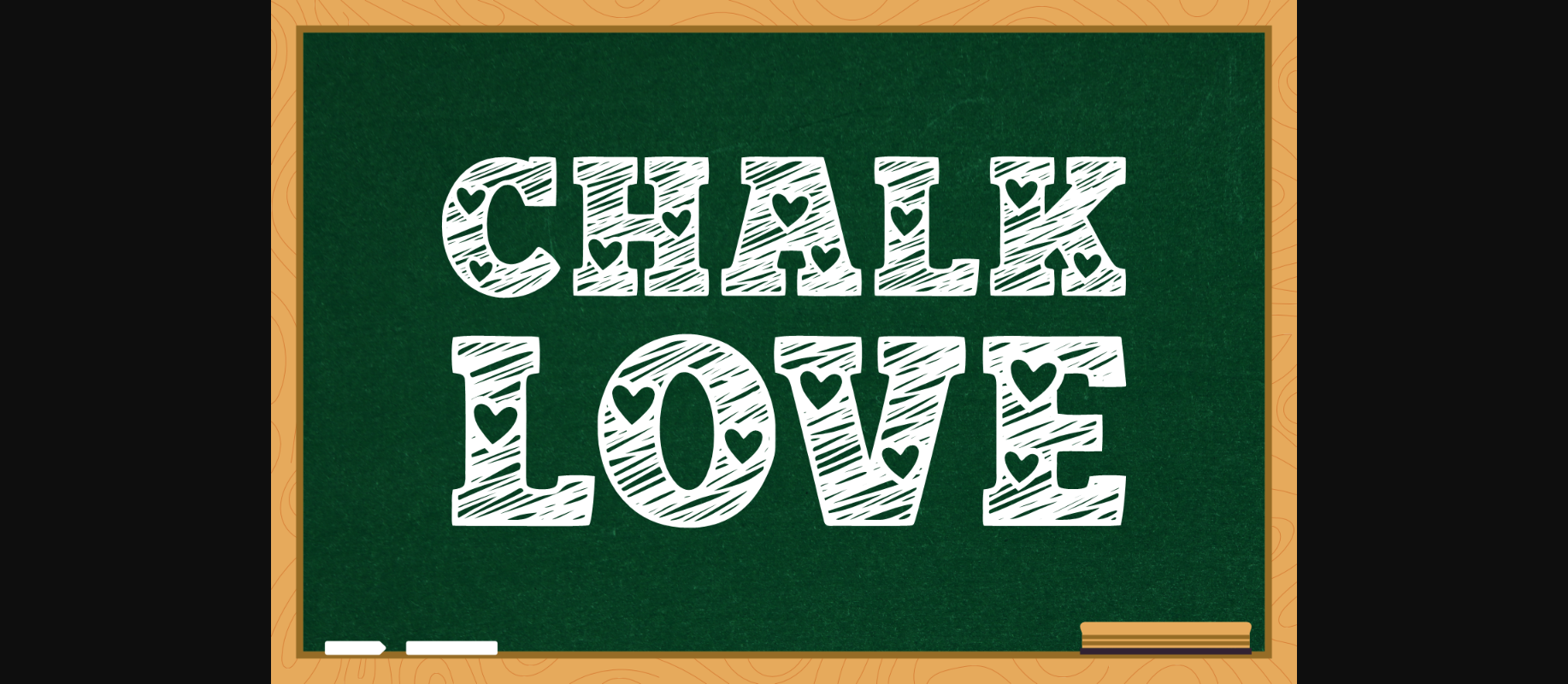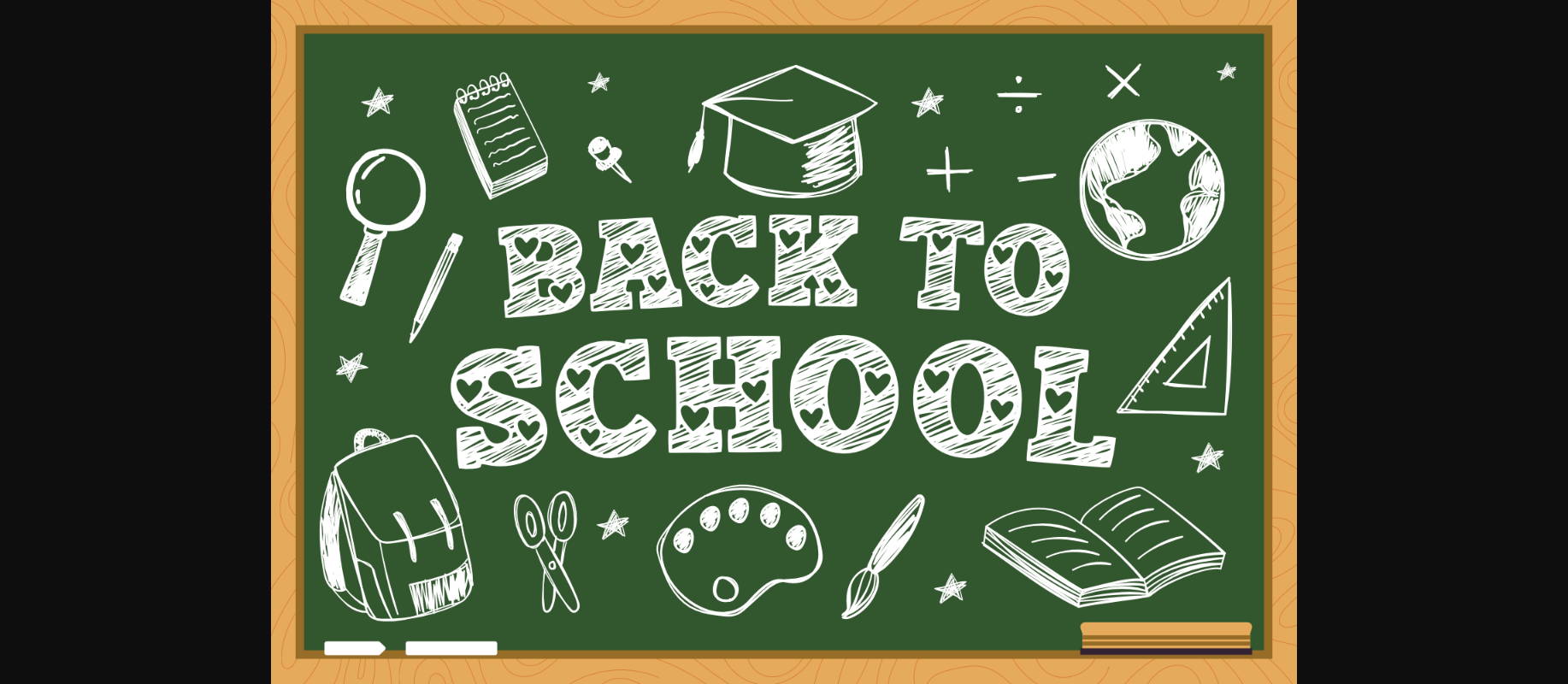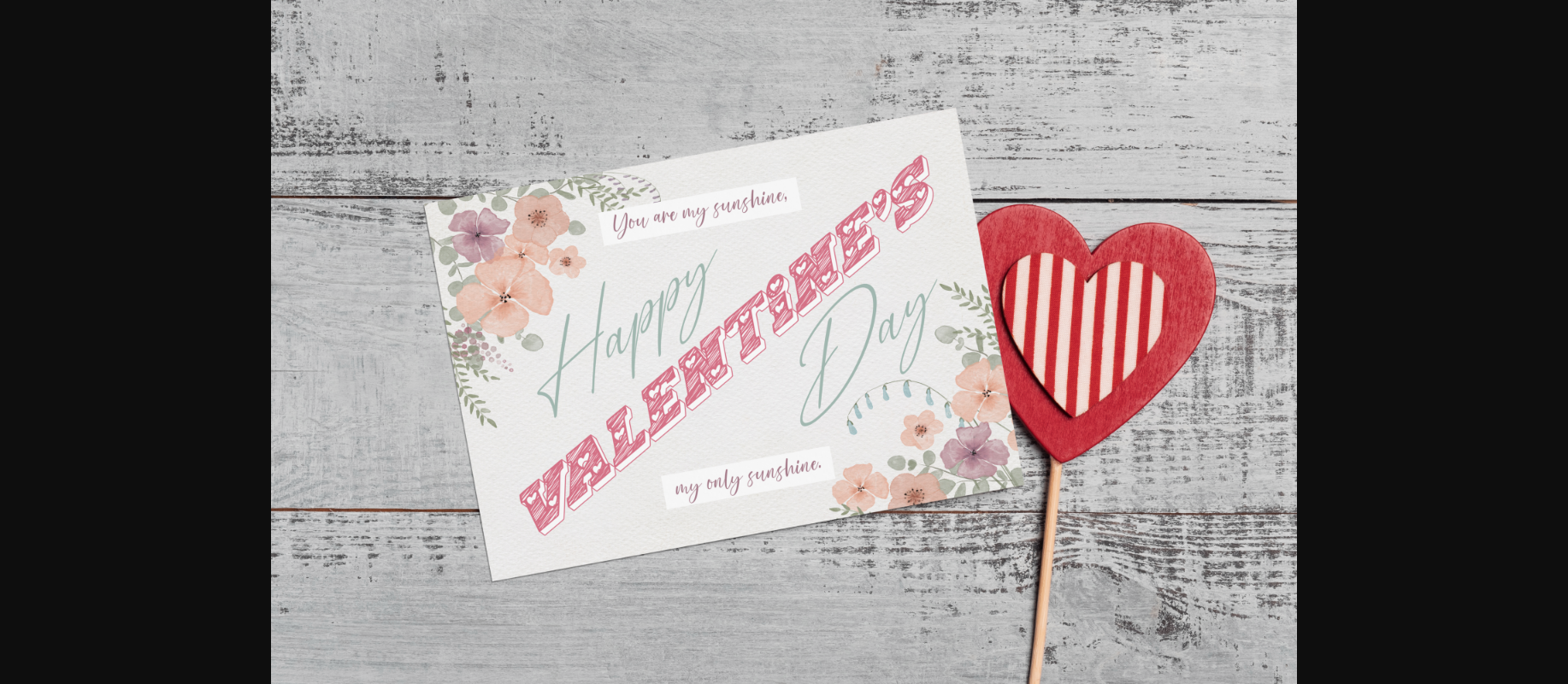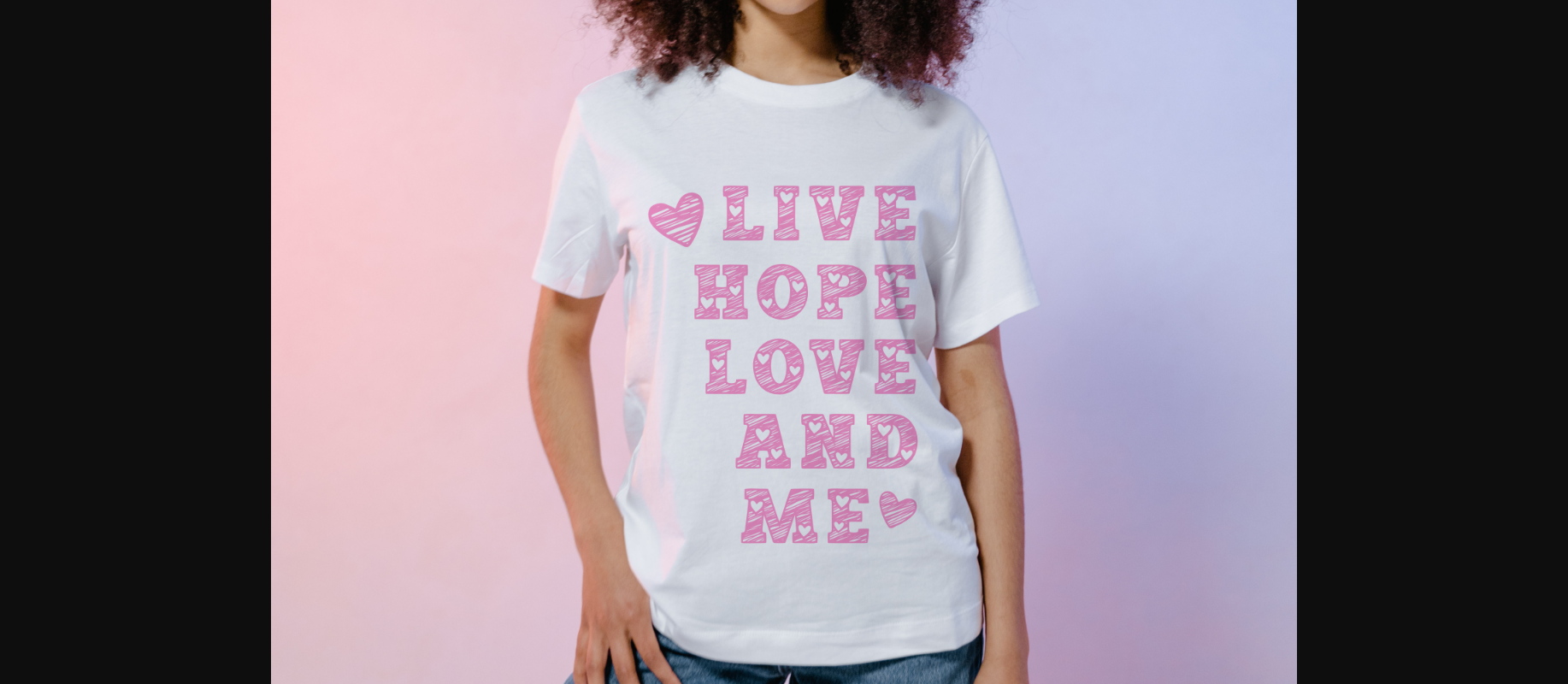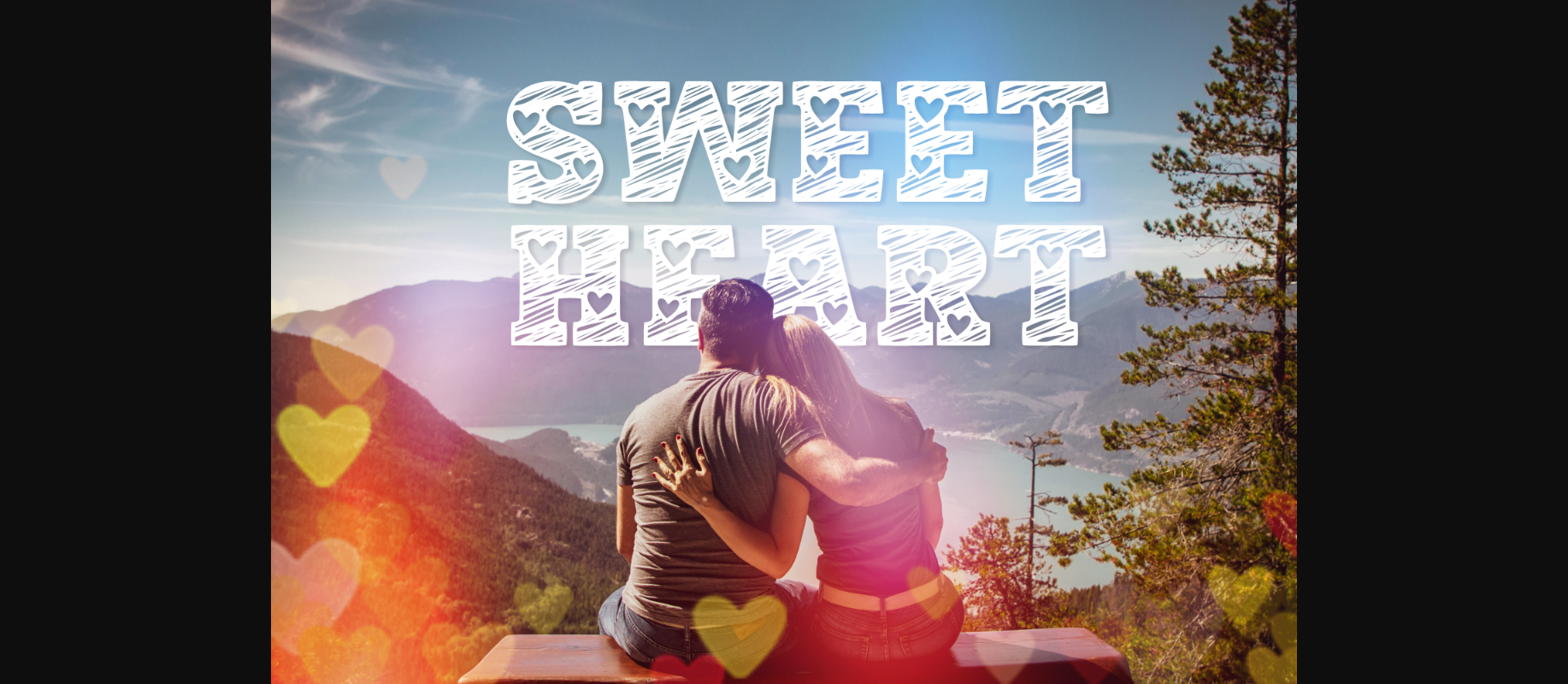
Chalk Love Font
About Chalk Love Font
Introducing “Chalk Love,” a delightfully decorative typeface that artfully captures the essence of affection and warmth. Designed with a hand-sketch aesthetic, it perfectly mirrors the charm of chalk drawings, offering an instant connection to heartfelt memories. Its retro-vintage vibe infuses an elegant touch of nostalgia in every stroke. Whether you’re a teacher looking to inspire with creative typeface in lessons and school activities, a student trying to add a unique touch to your ‘Back to School’ projects, or just someone wanting to express love in a visually stunning way on Valentine’s day cards, “Chalk Love” is your go-to choice. It’s a versatile font that encourages creativity and unfolds endless possibilities for the imaginative mind. Breathe life into your text with ‘Chalk Love’.